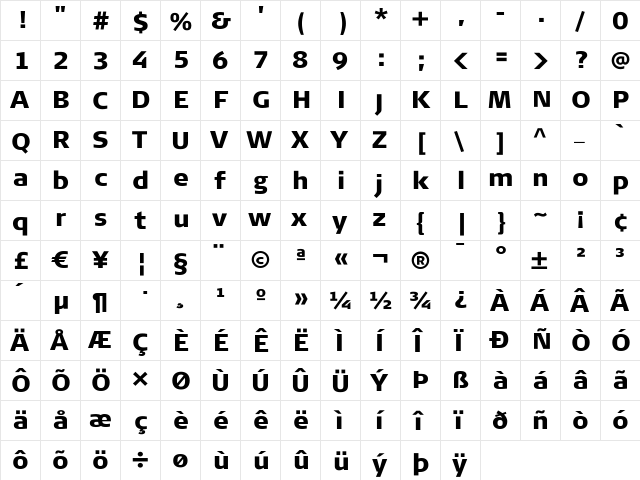
SignaColumn-Black Regular
SignaColumn-Black is a composed and adaptable typeface that performs quietly and consistently across a wide range of design contexts.